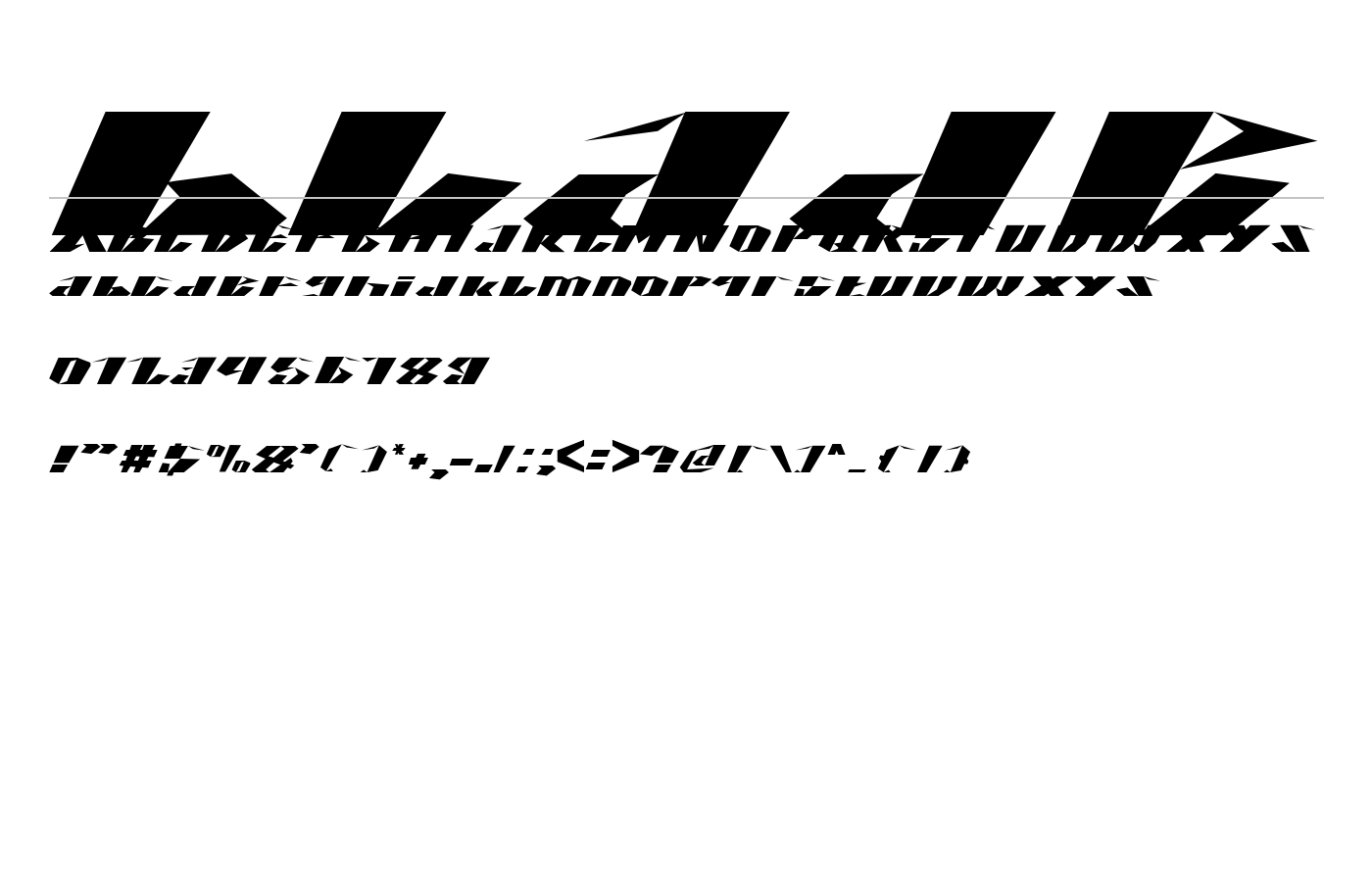
Blade is a bold, condensed sans serif font with sharp, angular strokes that create a sense of speed and aggression. Its high contrast and italicized, slanted letterforms give it a dynamic, futuristic feel, making it ideal for sports branding, technology, and edgy editorial headlines. This font stands out in energetic, modern designs where impact and movement are key.
blade Font
About blade Font
| Font family | blade Font |